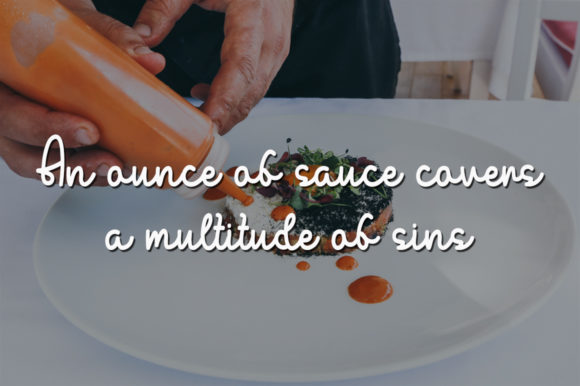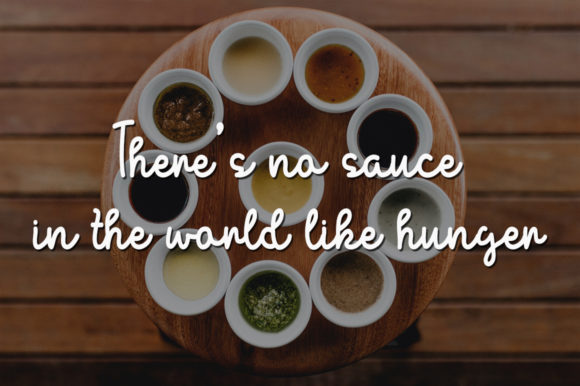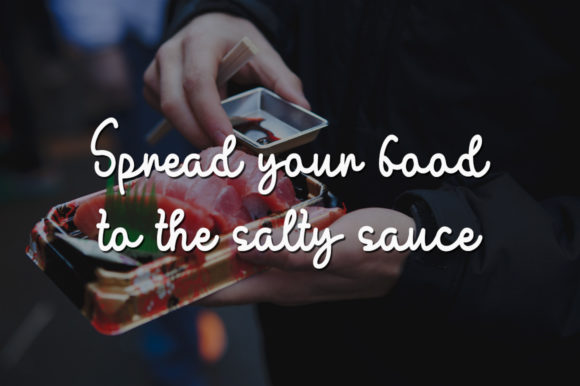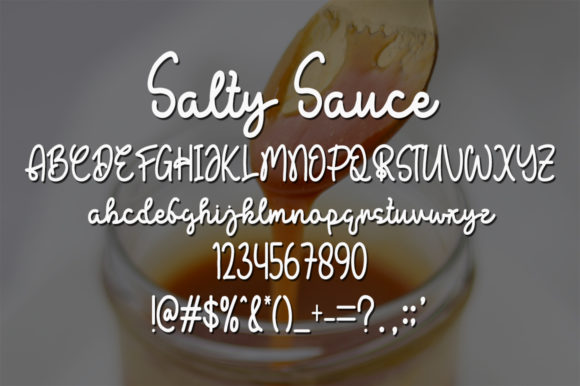
Salty Sauce Font
About Salty Sauce Font
Salty Sauce is a sweet and delicate handwritten font. Dainty and joyful, this font will be ideal for writing wedding invitations, cards or any other design that may need a romantic, personalized touch!